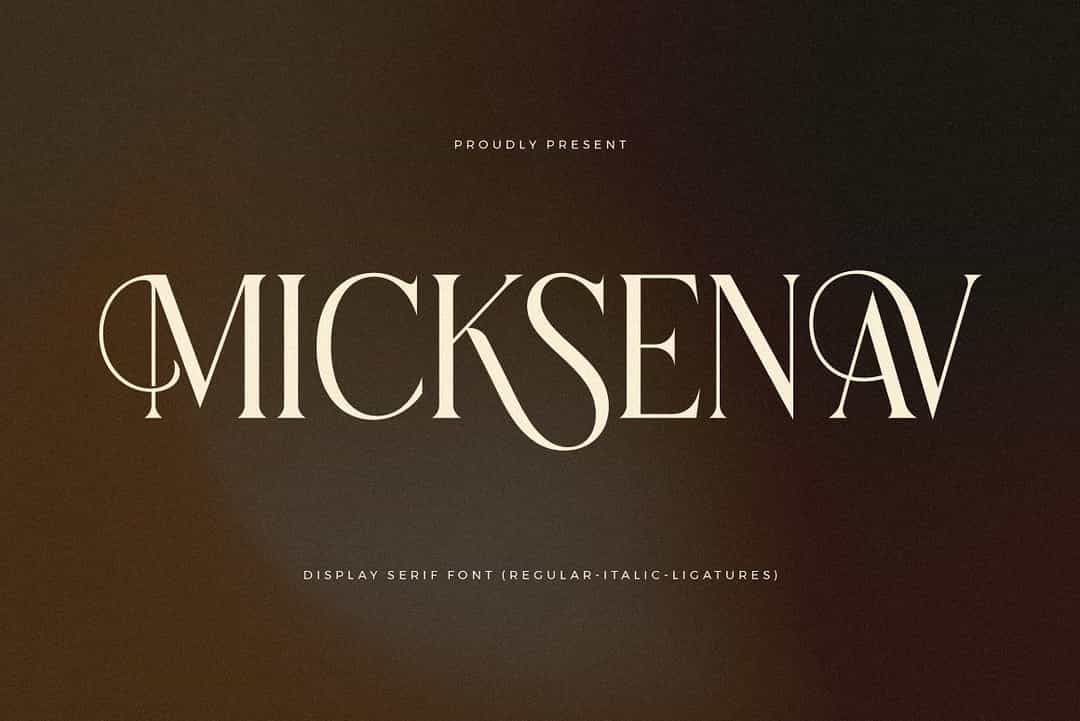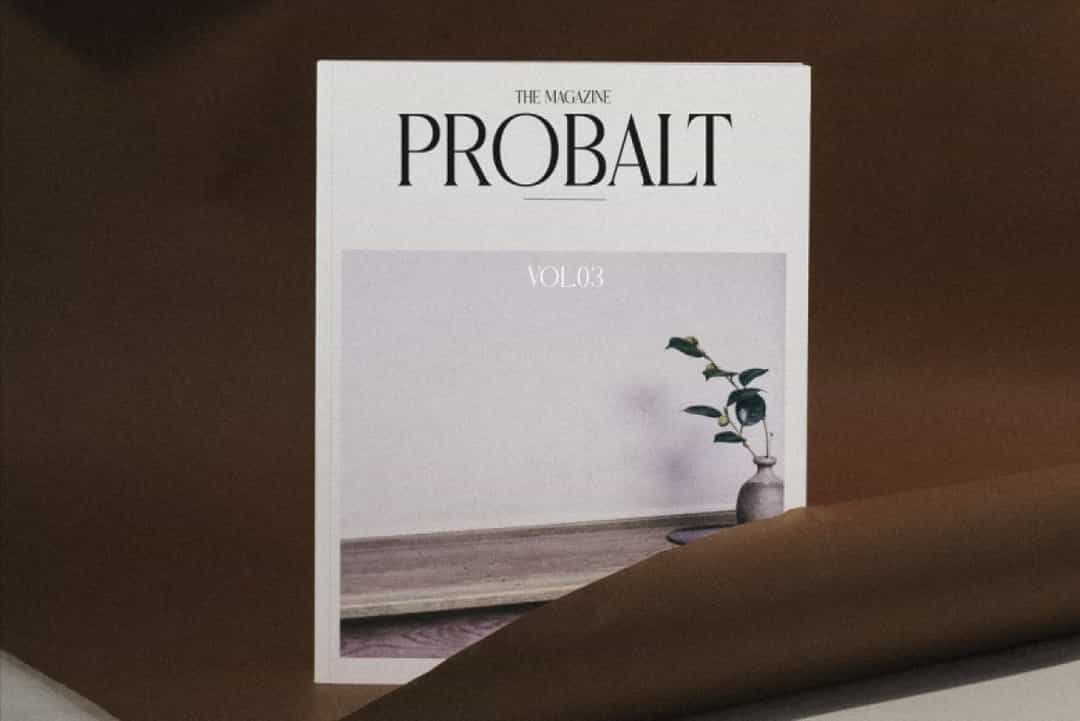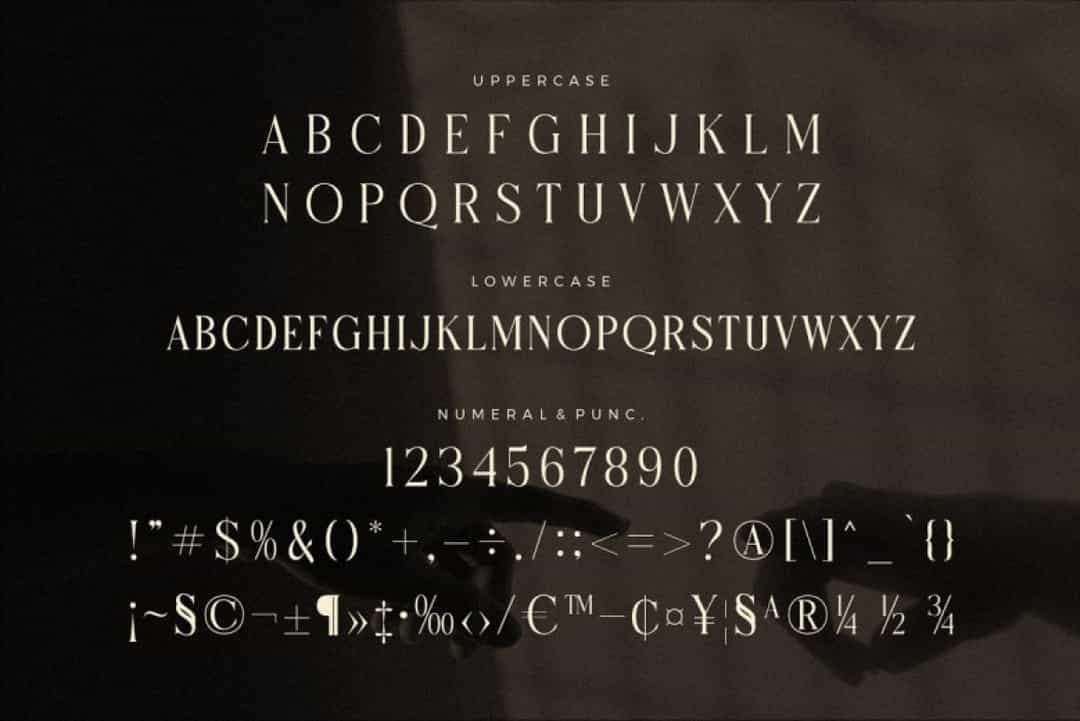
Micksenav Font, designed by Storytype, is an elegant yet contemporary serif typeface with its distinct style and modern appearance, ideal for creating stylish logos, movie or book name designs, fashion brand magazines, clothing letters, quotes and much more.